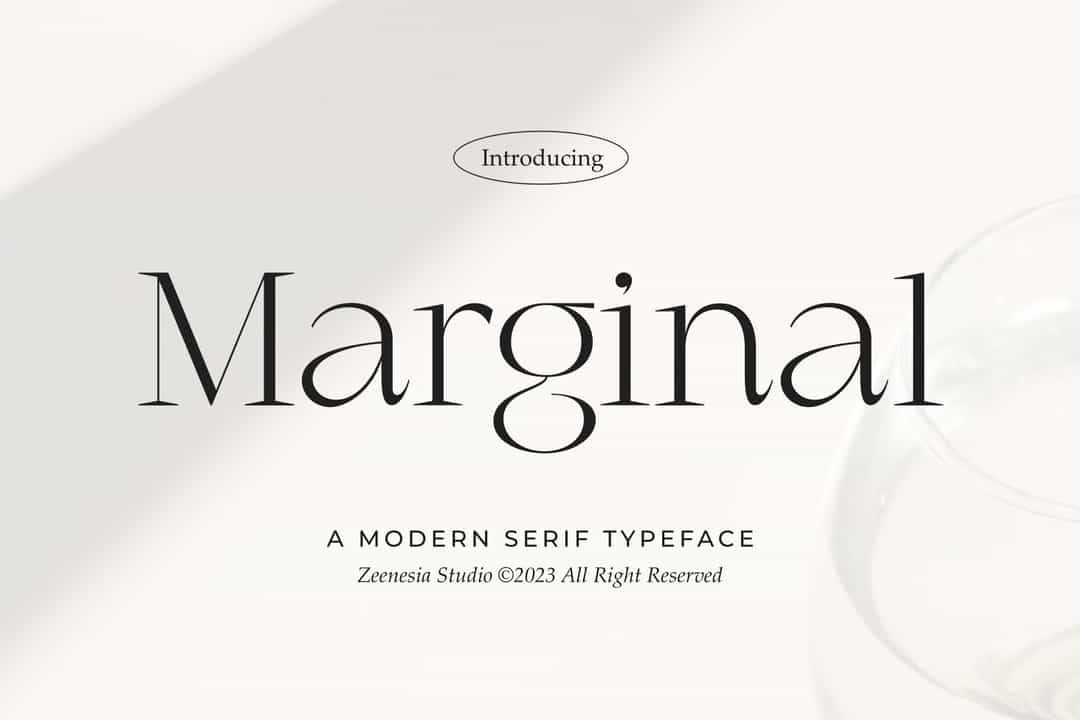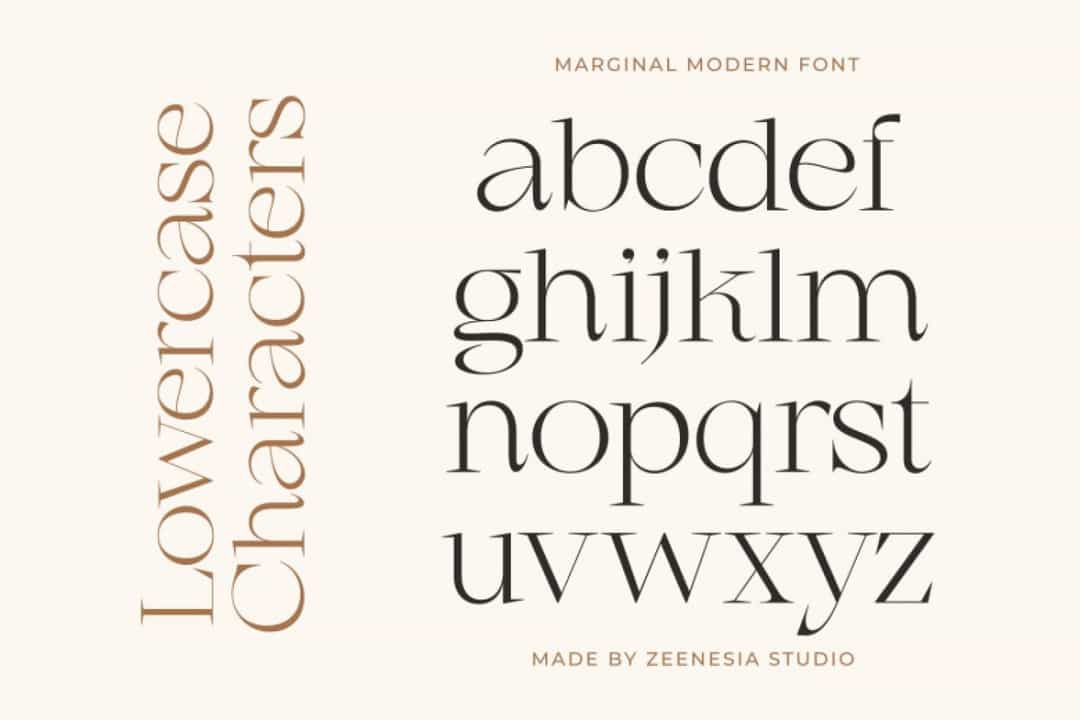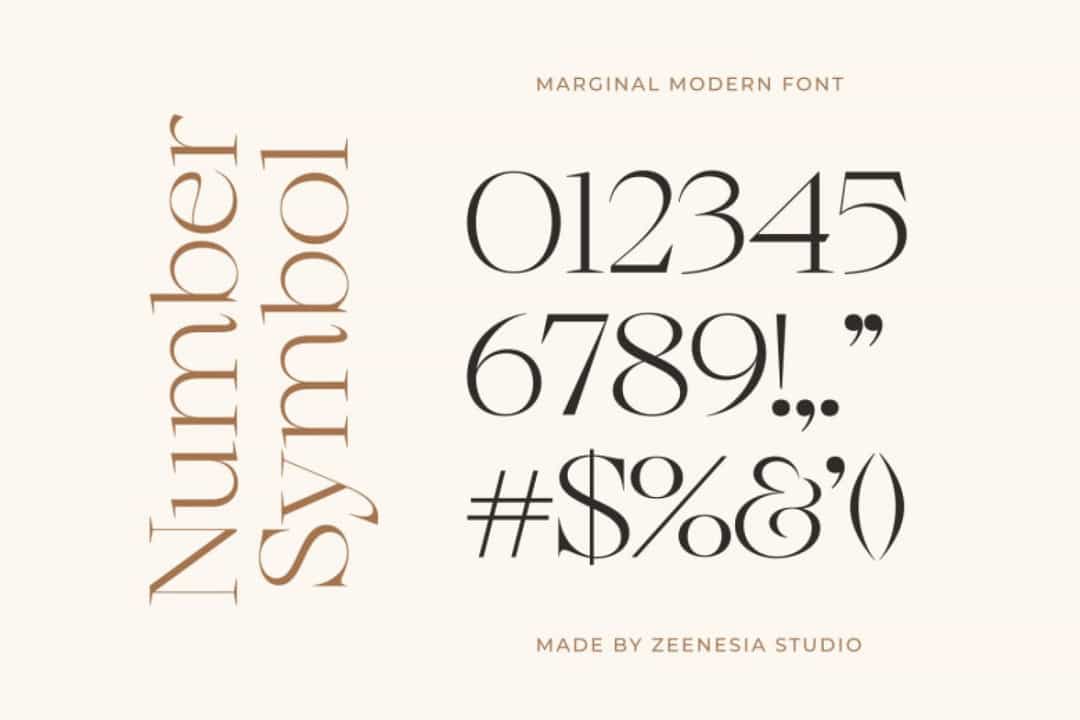
Marginal is an elegant display font with serif style. A modern and classic font, Marginal stands out as having both its distinct style and sophisticated appearance – ideal for projects that need an added dose of fun in their work such as editorial projects, logo design or web font brand, clothing branding packaging magazines headers for magazines or just serving as chic text overlay for every background photo.